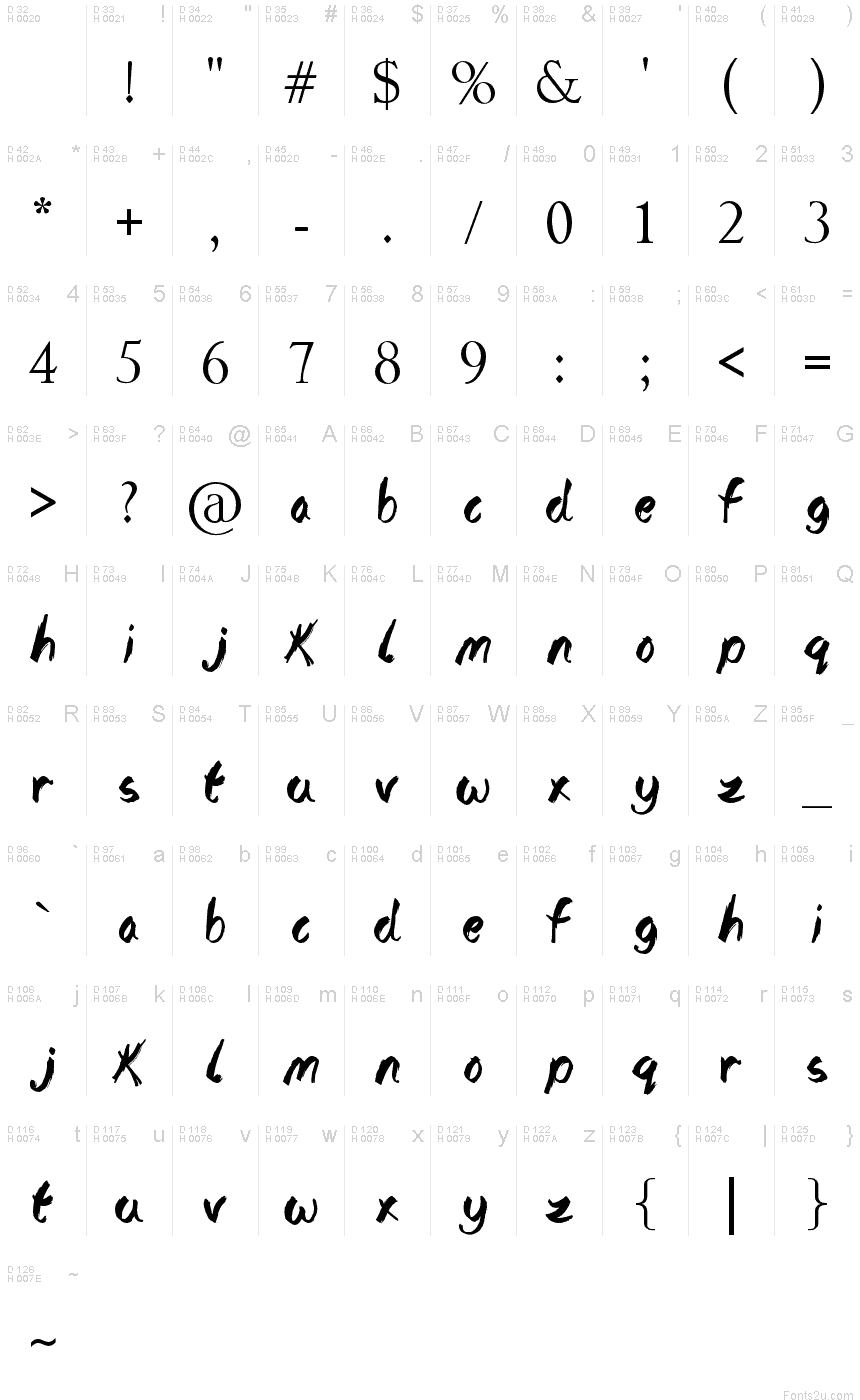
The Lost Paintings
The Lost Paintings is a free brush script from TattooWoo.com, dated 2012. Broad, fast strokes shape loose letters with sharp joins, uneven edges, and dramatic width changes.
It can turn a fashion label or album cover into a hand-painted signature. That restless line also suits tattoo studio branding and music posters with inked artwork. In editorial design, it lends feature openers and magazine cover lines a raw, expressive, personal charge.